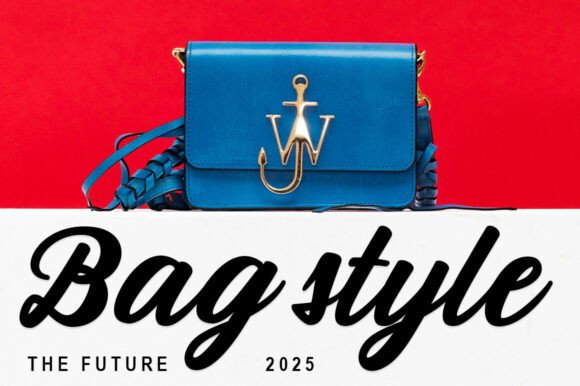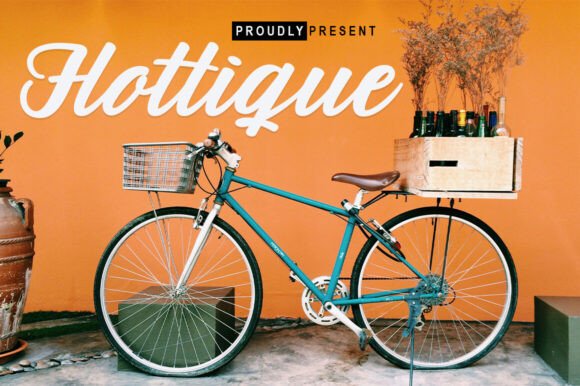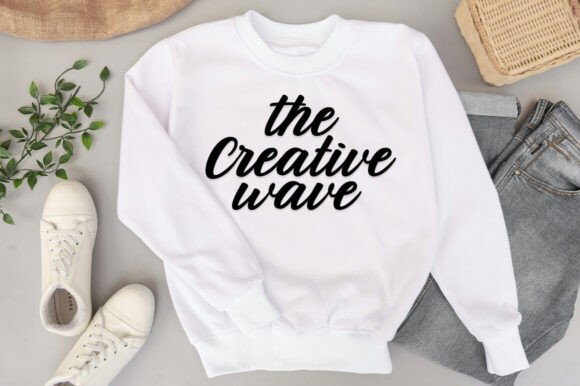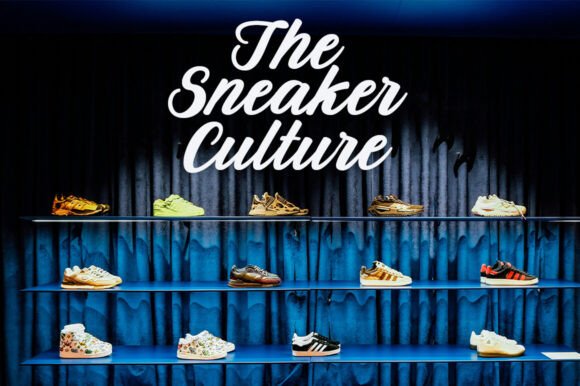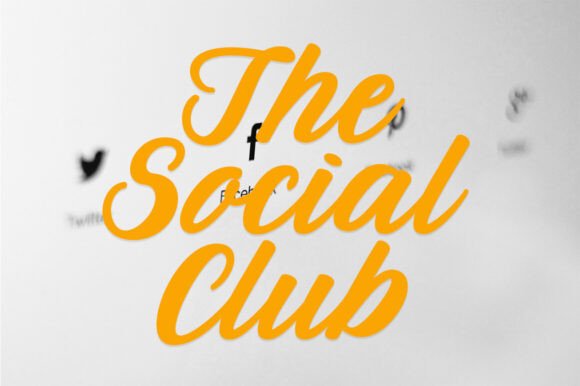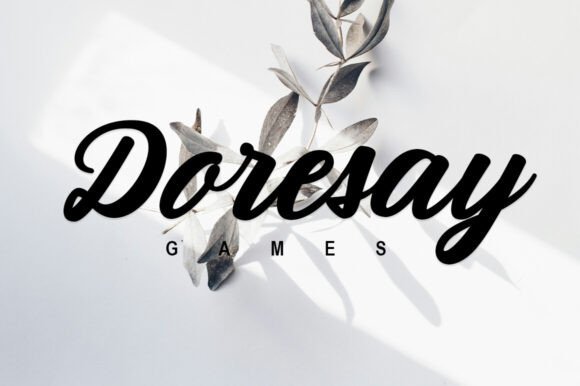
Introduction to Mistran Font
Imagine you’re brainstorming ideas for your next creative project, and you’re stuck on the perfect font to elevate your design. The moment of truth arrives when you stumble upon a font that makes your vision come alive. For designers, finding the perfect font can be a game-changer – it’s what sets a project apart from the rest. This is exactly what Mistran Font does. Its unique blend of classic elegance and futuristic innovation makes it the ultimate design resource for luxury branding, editorial designs, or wedding invitations.
As a high-quality typeface, Mistran Font features fluid, calligraphic strokes that mimic the natural flow of a pen, paired with subtle modern accents like angular flourishes and dynamic ligatures. Whether you’re working on a digital or print project, this versatile font delivers a sleek yet organic aesthetic that’s perfect for designers seeking sophistication with a forward-thinking edge.
Key Features of Mistran Font
- Unique characteristics include a modern, minimalist aesthetic and a wide range of language support
- Perfect for use in digital design, print materials, and other creative projects requiring a high-quality font
Honest Review: Mistran Font
I recently stumbled upon the Mistran Font, a free design resource that caught my attention. As a designer, I’m always on the lookout for high quality fonts to elevate my creative projects. Let’s dive into my honest review.
- High-quality design: The Mistran Font boasts clean lines, elegant curves, and a sophisticated feel.
- Limited character set: While the font is great for body text, it may not be suitable for titles or complex typography.
- Not ideal for bold text: The font’s design is best suited for subtle, elegant typography, making it less effective for bold or dramatic text.
Overall, I’m impressed with the Mistran Font. It’s a solid addition to any designer’s toolkit, and I appreciate the transparent background and free download options. While it may not be suitable for every project, it’s a great choice for creative endeavors that require a touch of elegance and sophistication.
Mistran Font: A High-Quality Design Resource
Tips for Getting the Most Out of Mistran Font
The Mistran Font is ideal for creative projects, such as graphic design, typography, and digital art. Its unique design and high-quality features make it a great choice for designers and artists looking for a versatile design resource.